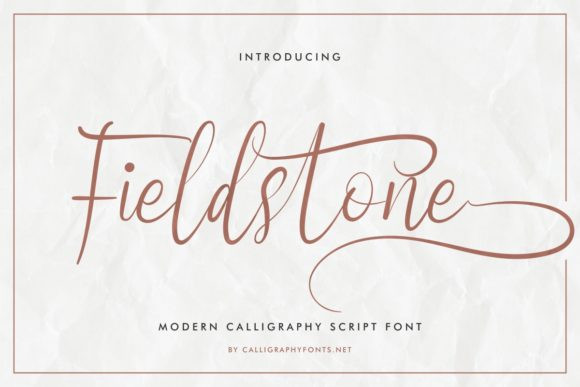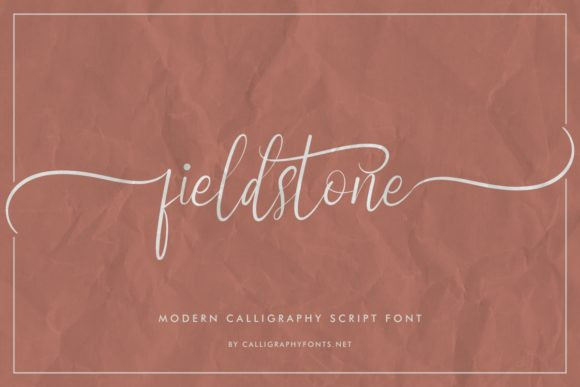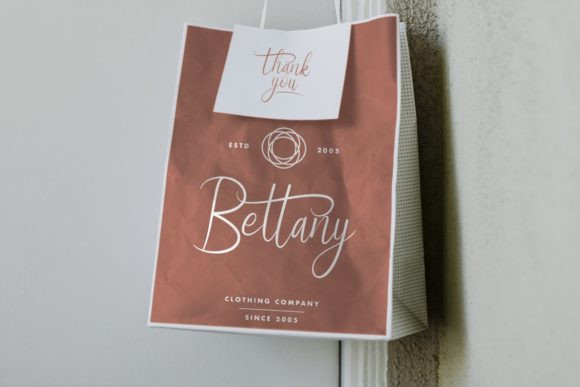
Fieldstone Font
Fieldstone FontFieldstone is a stylish, clean and joyful handwritten font. It looks lovely on quotes, greeting cards, logos, business cards and every other design which needs a personalized touch.